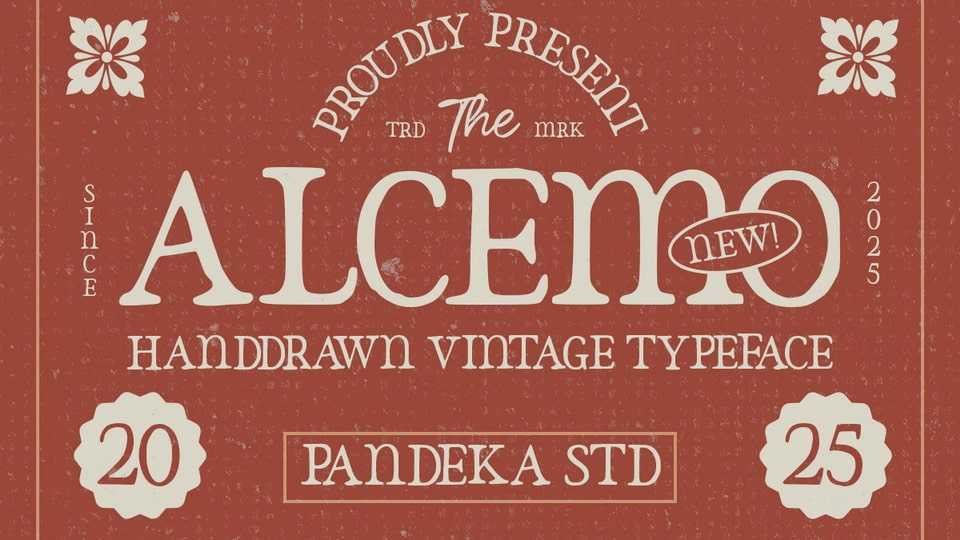
Download Alcemo font, a hand-drawn serif typeface with a classic yet rustic aesthetic. Its carefully crafted letterforms and subtle imperfections bring an authentic vintage feel.